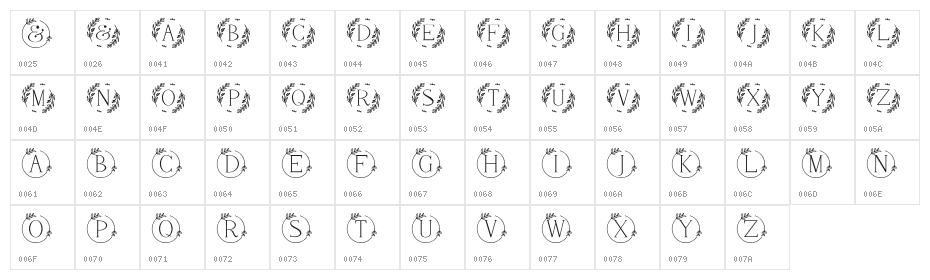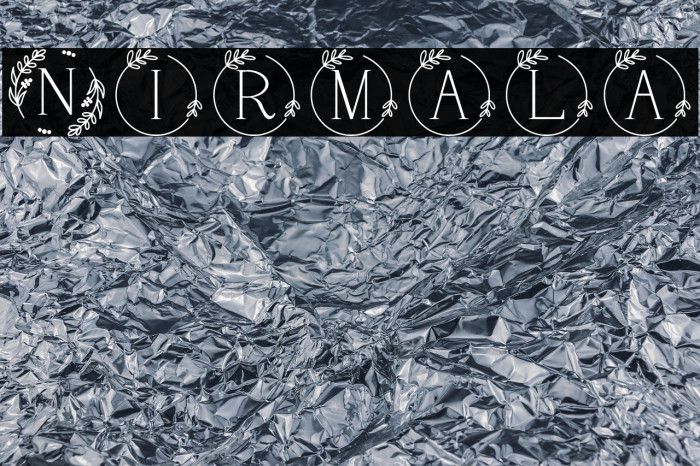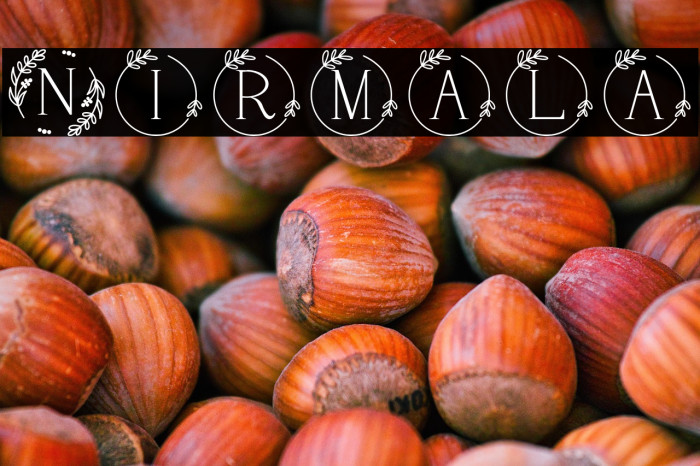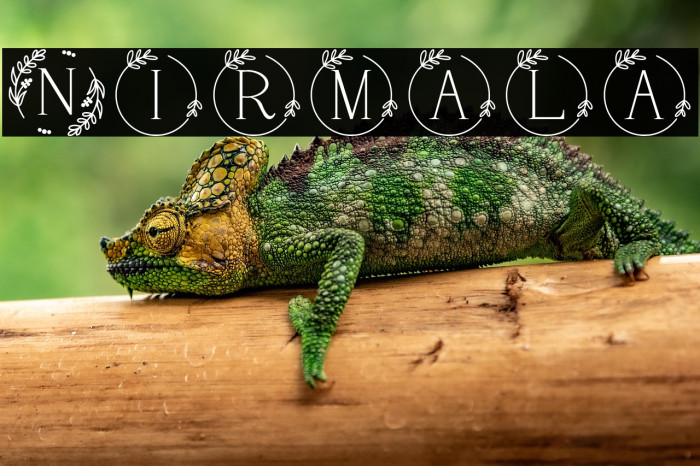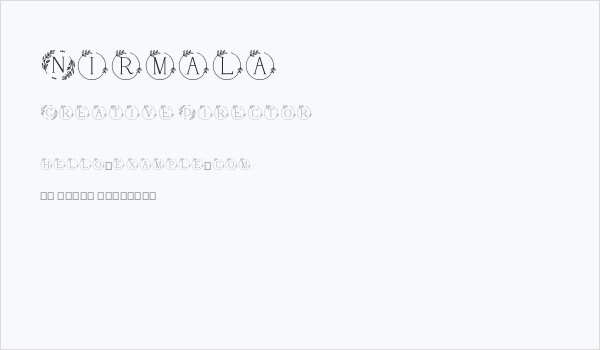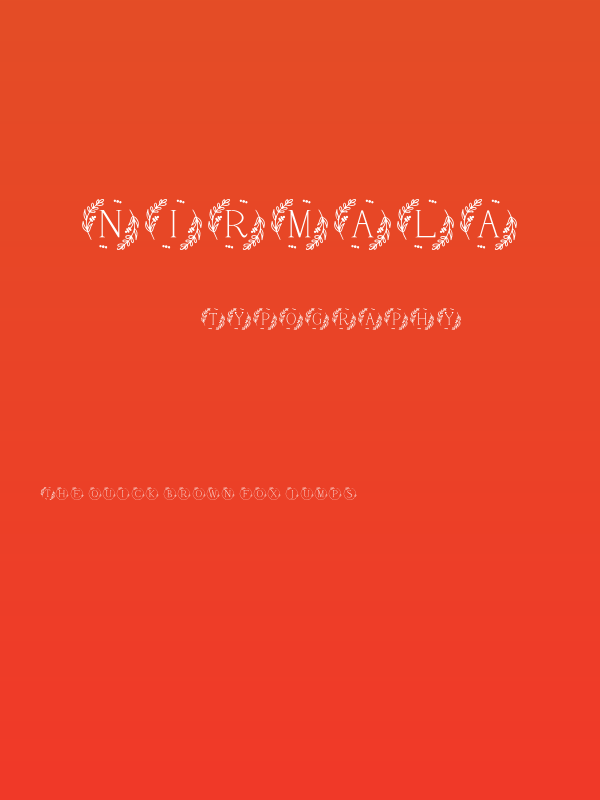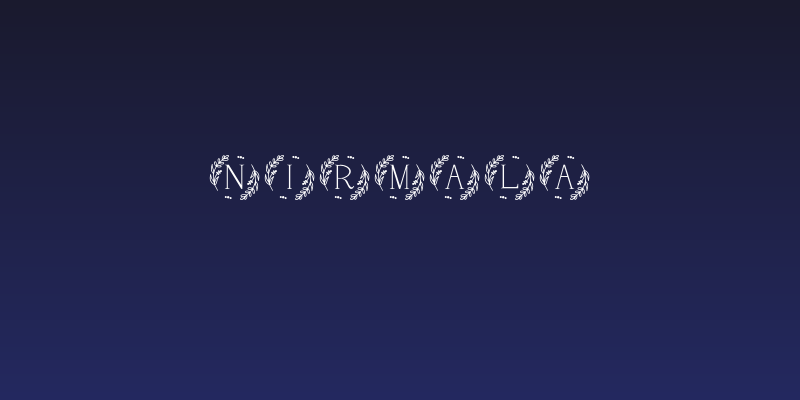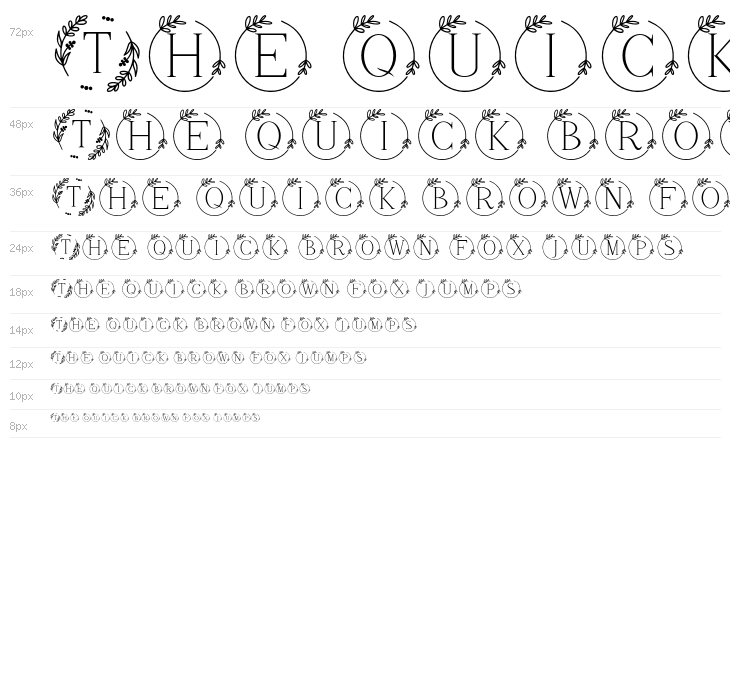
Nirmala Font
Nirmala Description
This decorative font features uppercase letters encased in circular frames adorned with floral elements, giving it an elegant and nature-inspired appearance. The letters are serif, adding a touch of classic sophistication. The floral decorations vary slightly with each letter, enhancing the organic feel. The font is well-suited for projects that require a touch of elegance and a natural theme, such as wedding invitations or eco-friendly branding. The overall style is both decorative and classic, making it versatile for various design needs.
| Use Case | Logos, Invitations, Decorative headings |
| Proposed Projects | Ideal for wedding invitations, eco-friendly branding, and elegant stationery. |